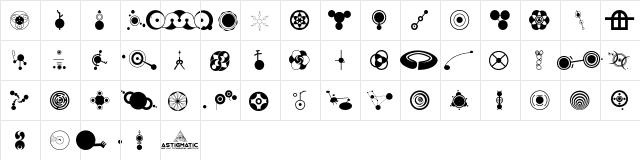
CropBatsAOE Regular
Design Context for CropBatsAOE Typeface
CropBatsAOE is a composed and adaptable typeface that performs quietly and consistently across a wide range of design contexts.